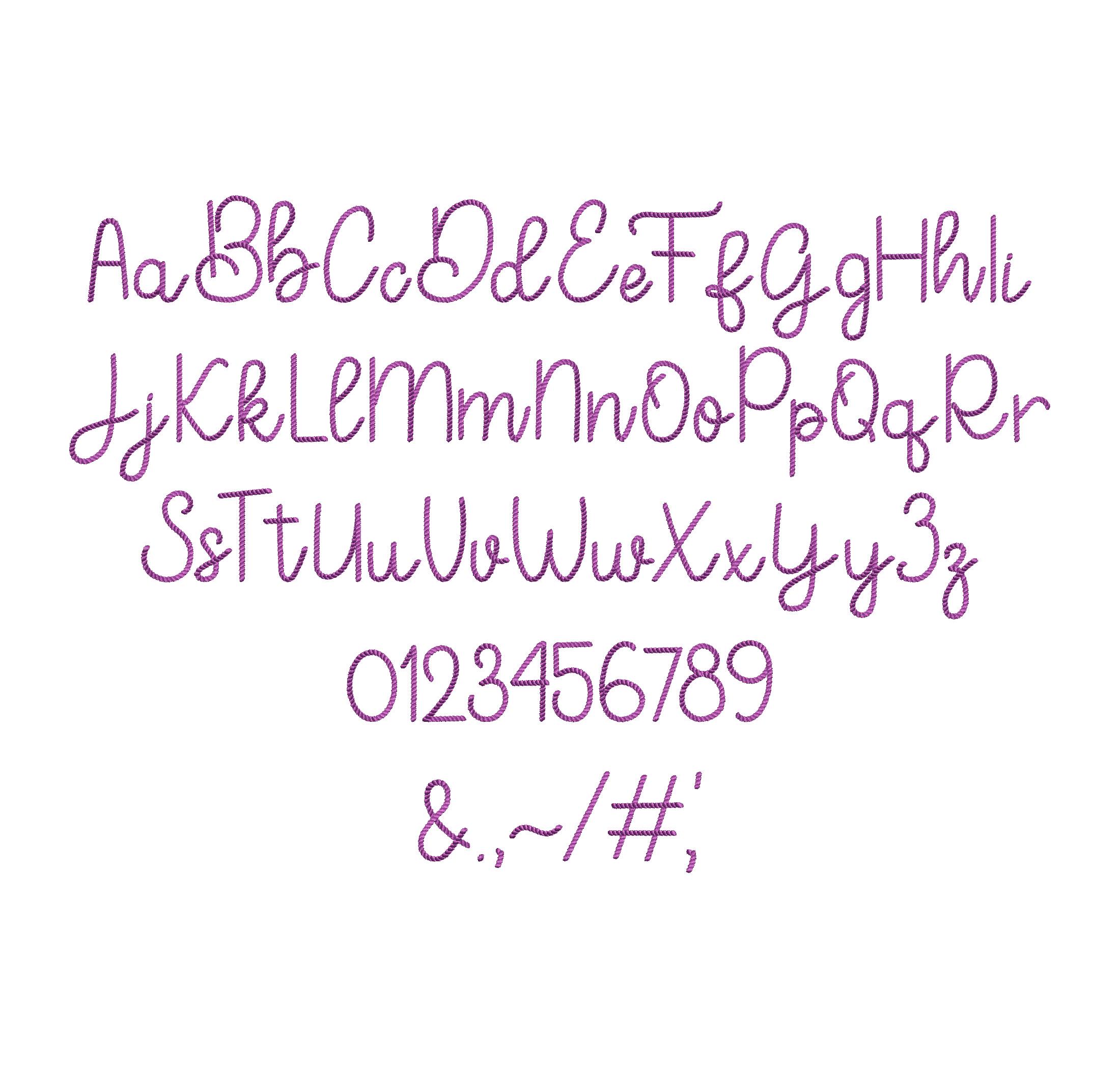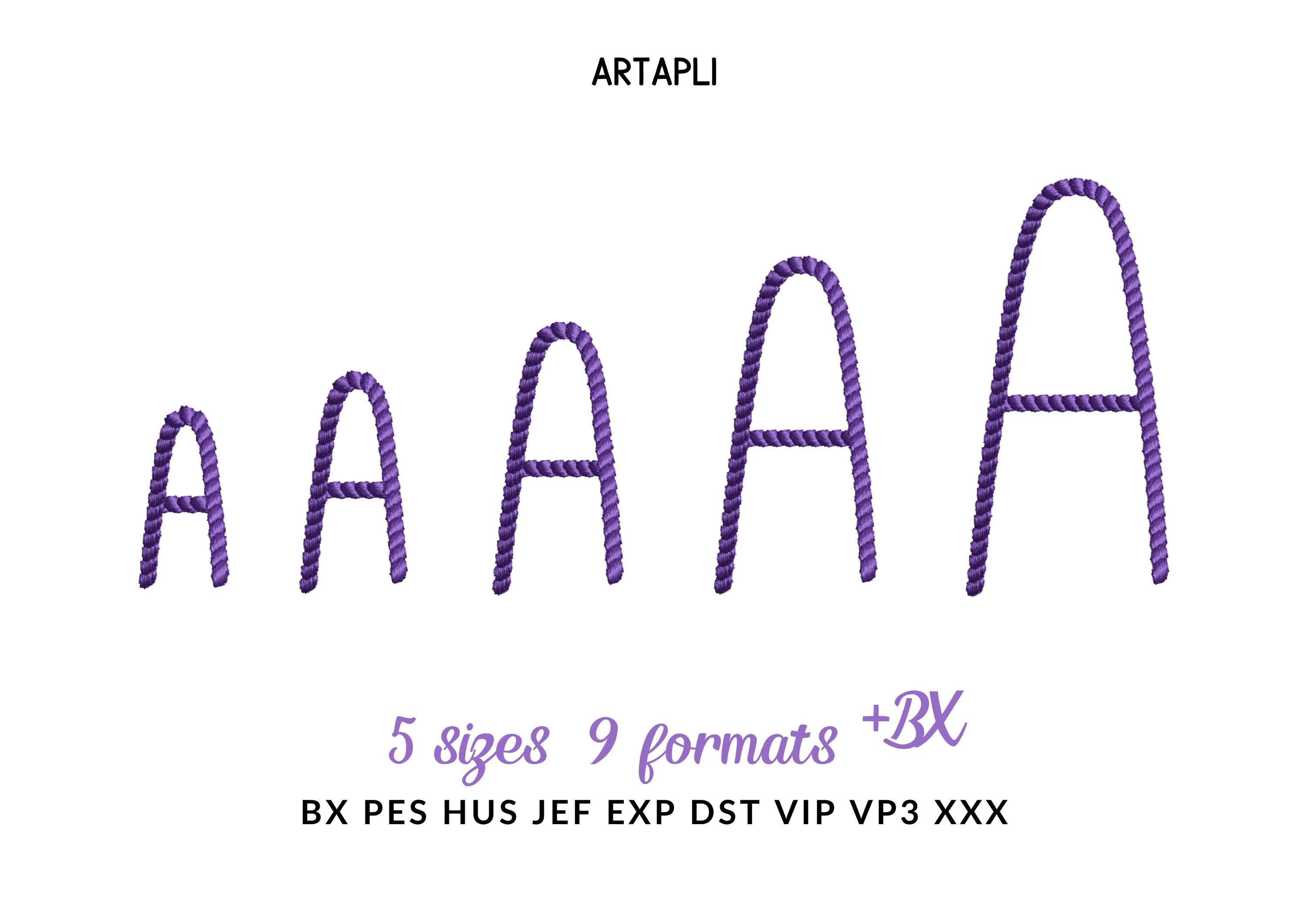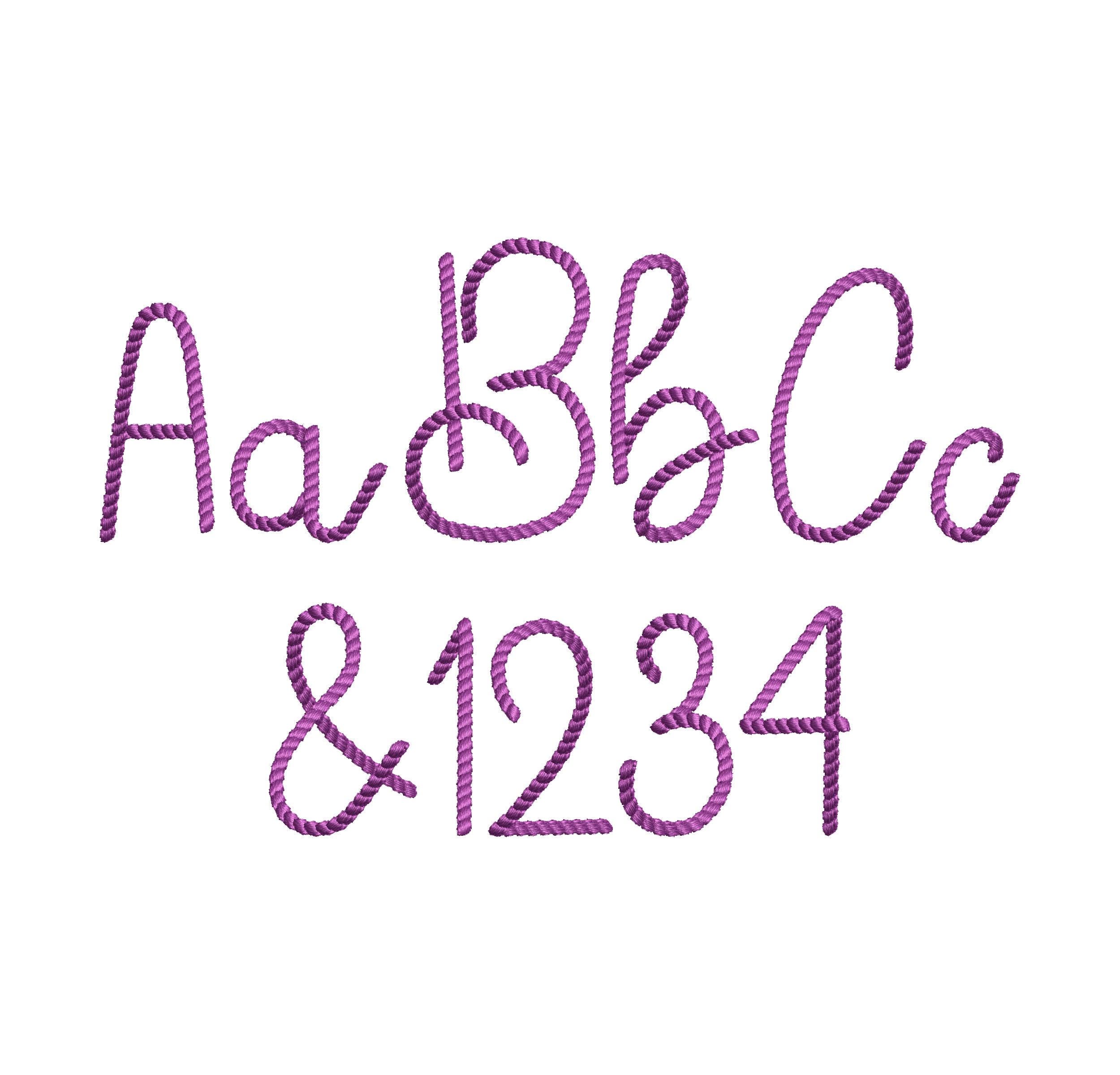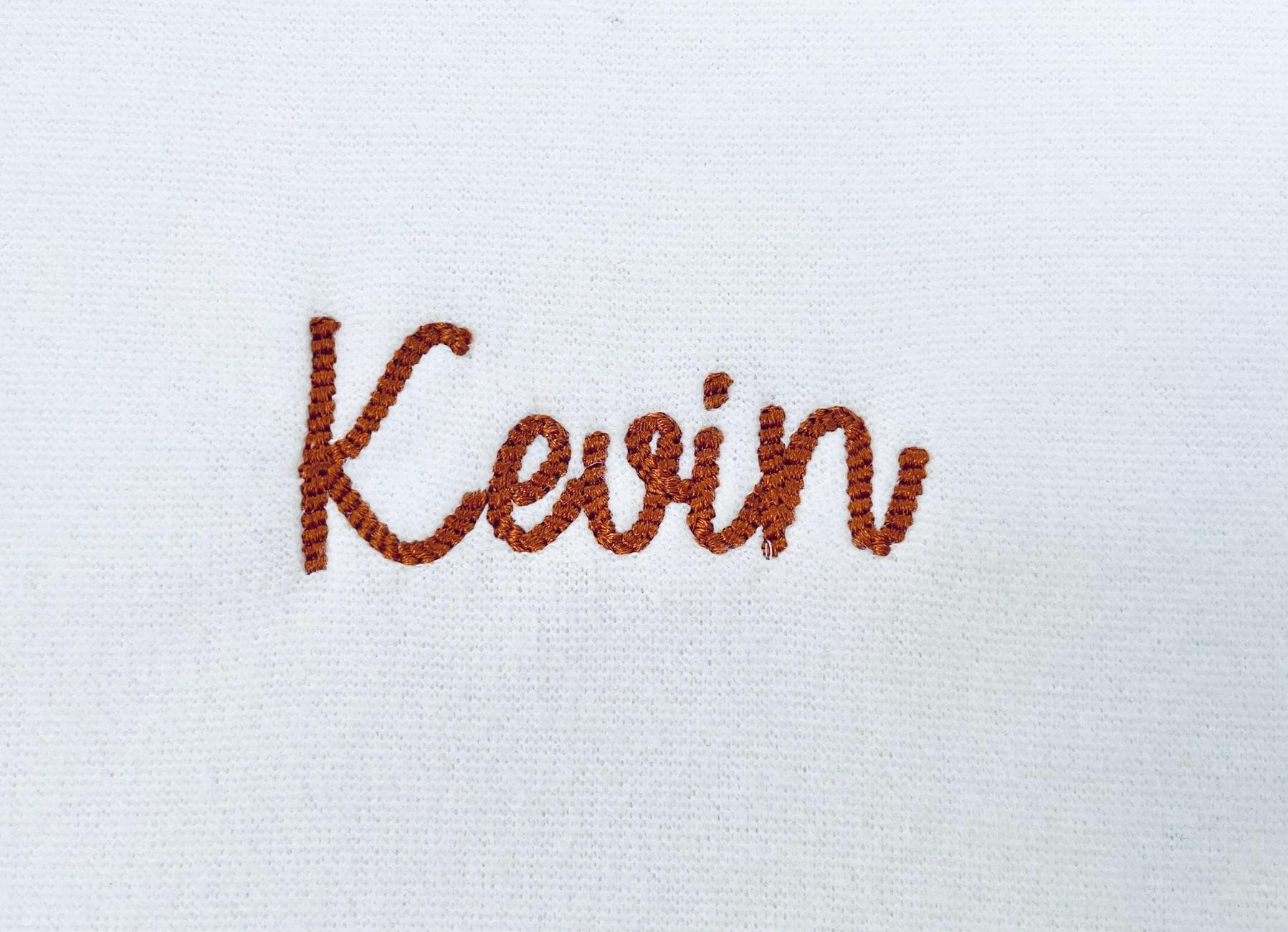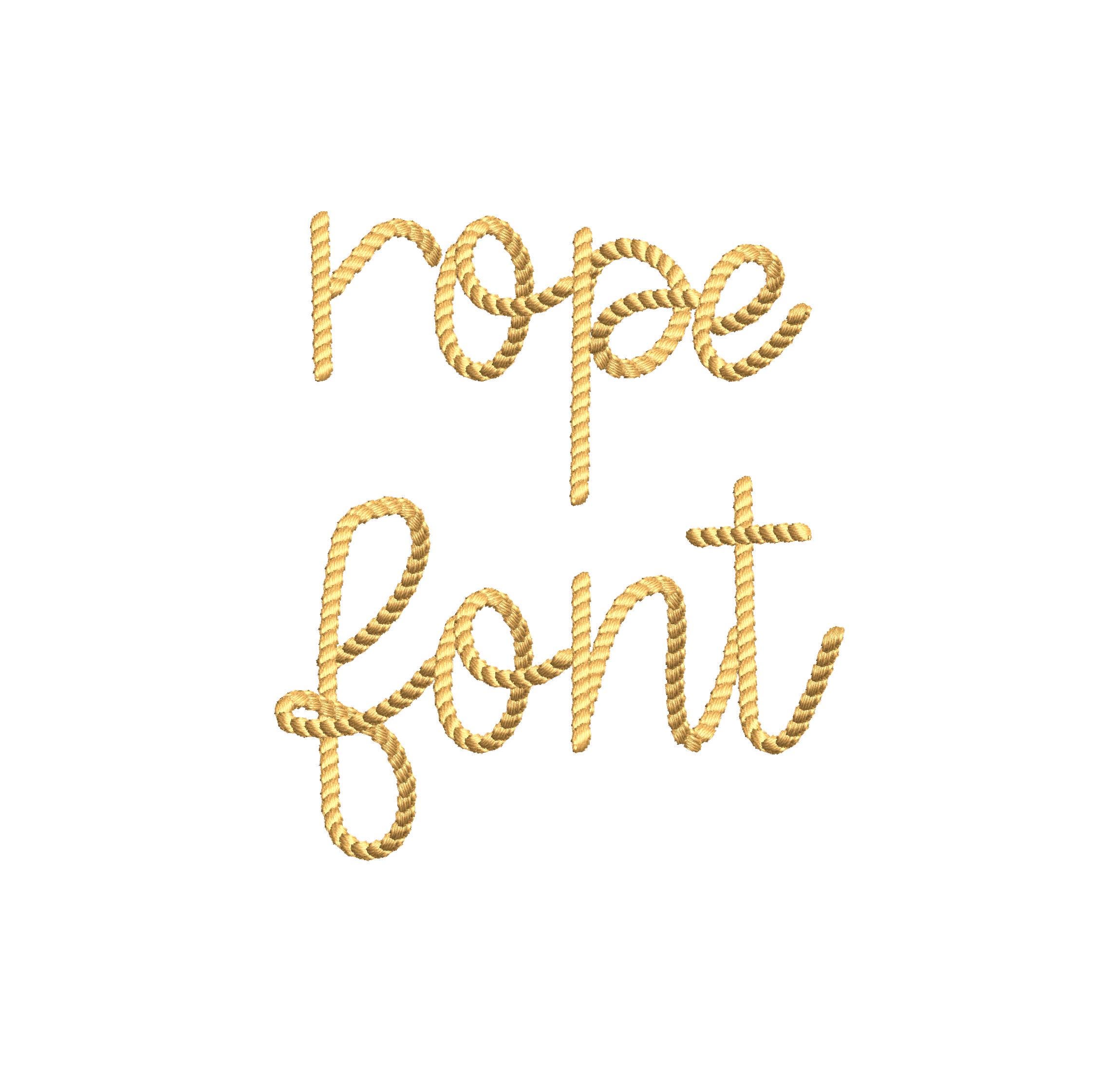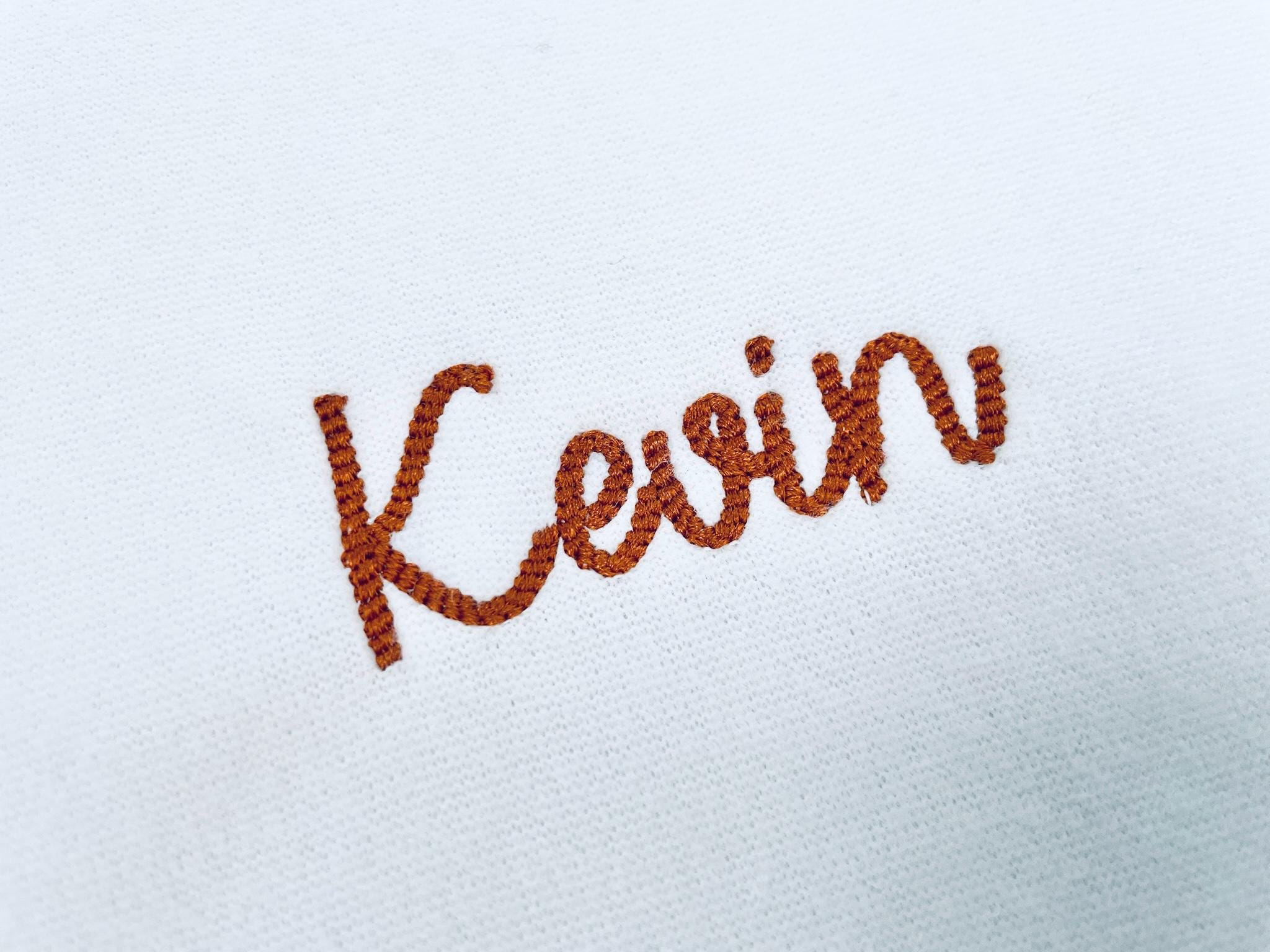
Mini Thin Rope stitch FONT Cowboy lasso textured Alphabet Monogram Machine Embroidery Designs handwritten script sizes 0.9 up to 2.1 inch, BX
0.9 inch
1.1 inches
Entire alphabet Aa-Zz uppercase and lowercase letters, numbers 0-9, and punctuation.
This is a very nice stitch